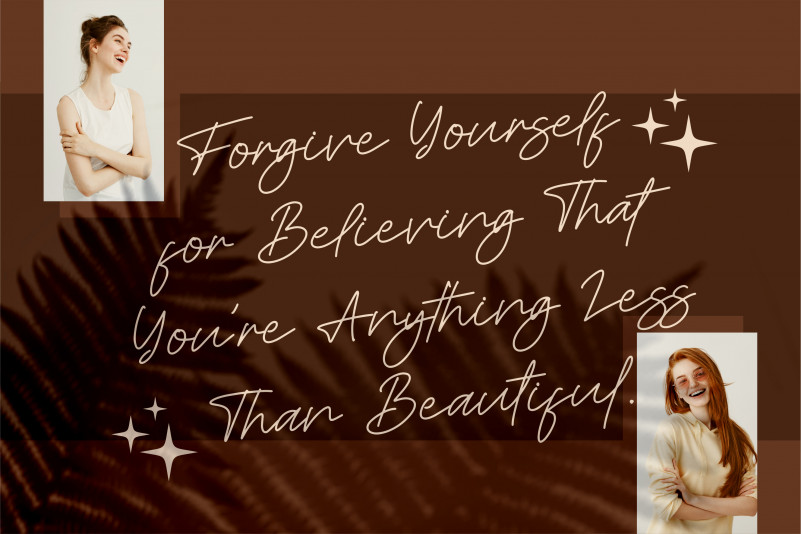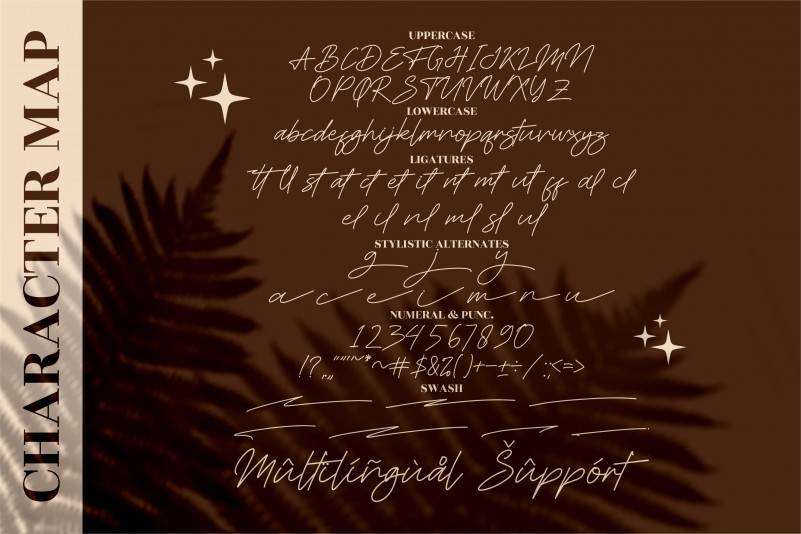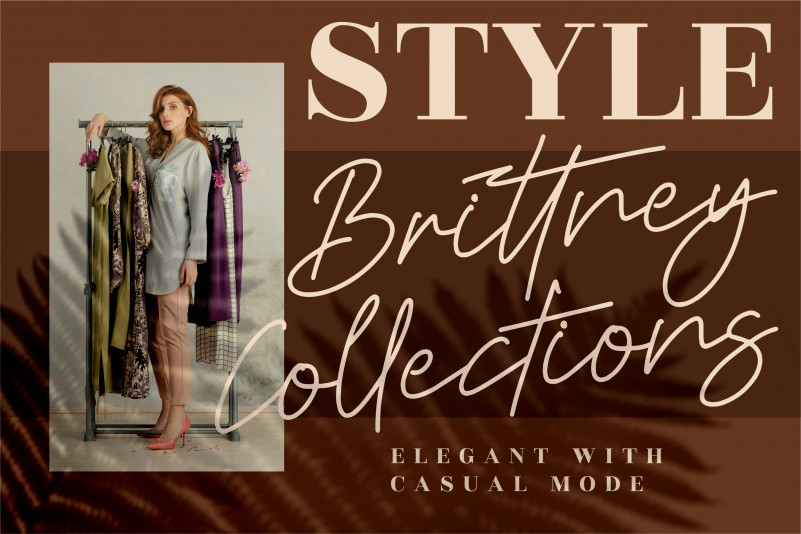
Ferttigra Font
Ferttigra Handwritten Font
This is a beautiful and refined script font. It has a classy, elegant and modern look that can be used for logos, branding, invitations, stationery, wedding designs, social media posts, and much more!